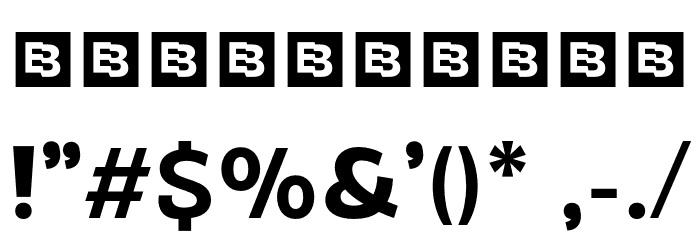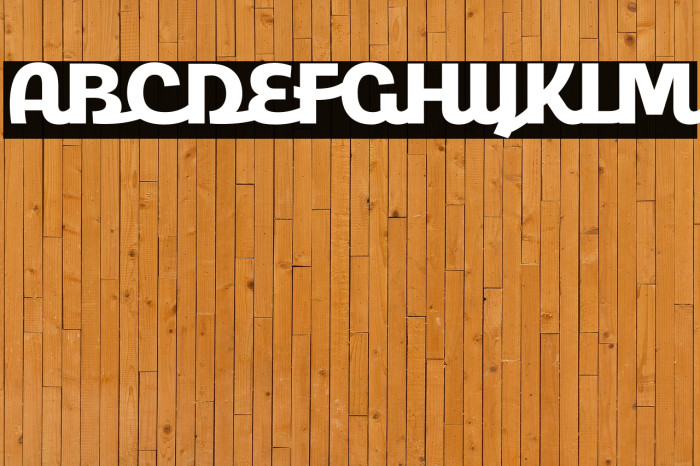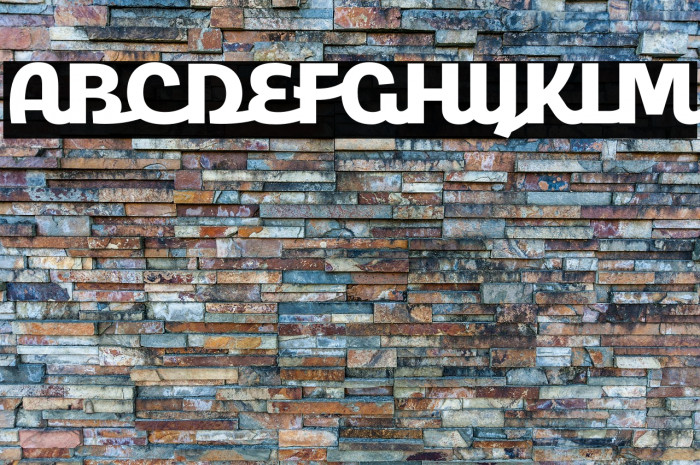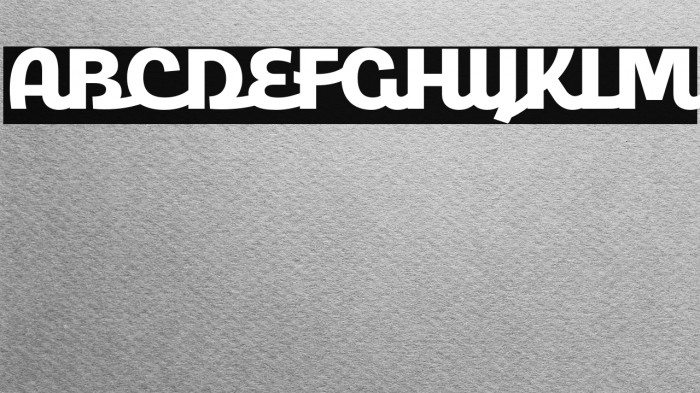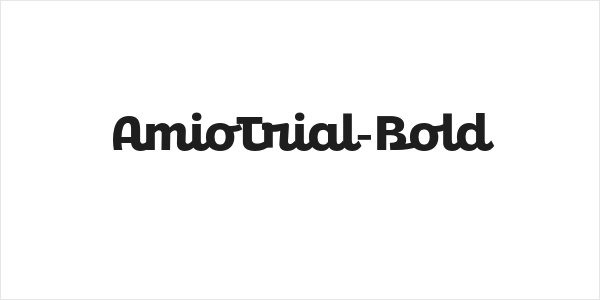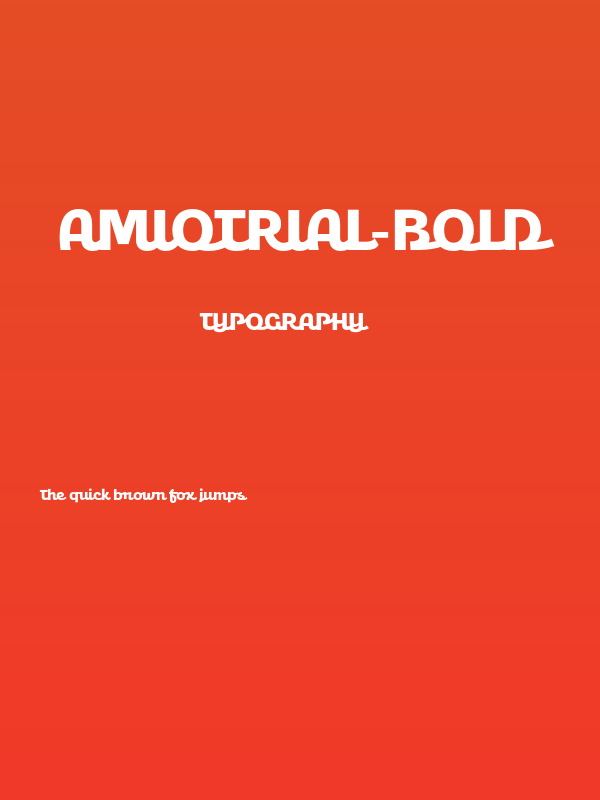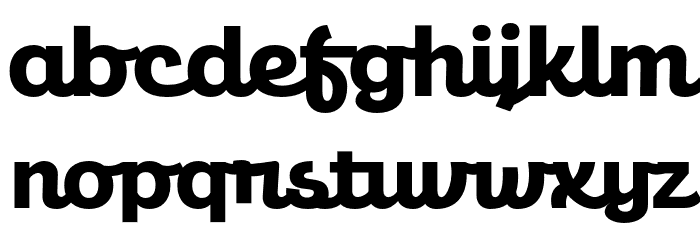
AmioTrial-Bold Font
AmioTrial-Bold Description
This font features a bold and playful design with a strong presence. The characters are rounded and have a unique, flowing style that adds a sense of movement and energy. The uppercase letters are particularly striking, with a consistent thickness that enhances readability. The lowercase letters maintain the same playful aesthetic, making the font versatile for various uses. The numbers and special characters are designed to match the overall style, ensuring a cohesive look across all text elements. This font is ideal for projects that require a bold statement and a touch of creativity.
| Overall Style | Playful, Modern |
| Proposed Projects | Perfect for branding, posters, children's books, and creative advertising. |